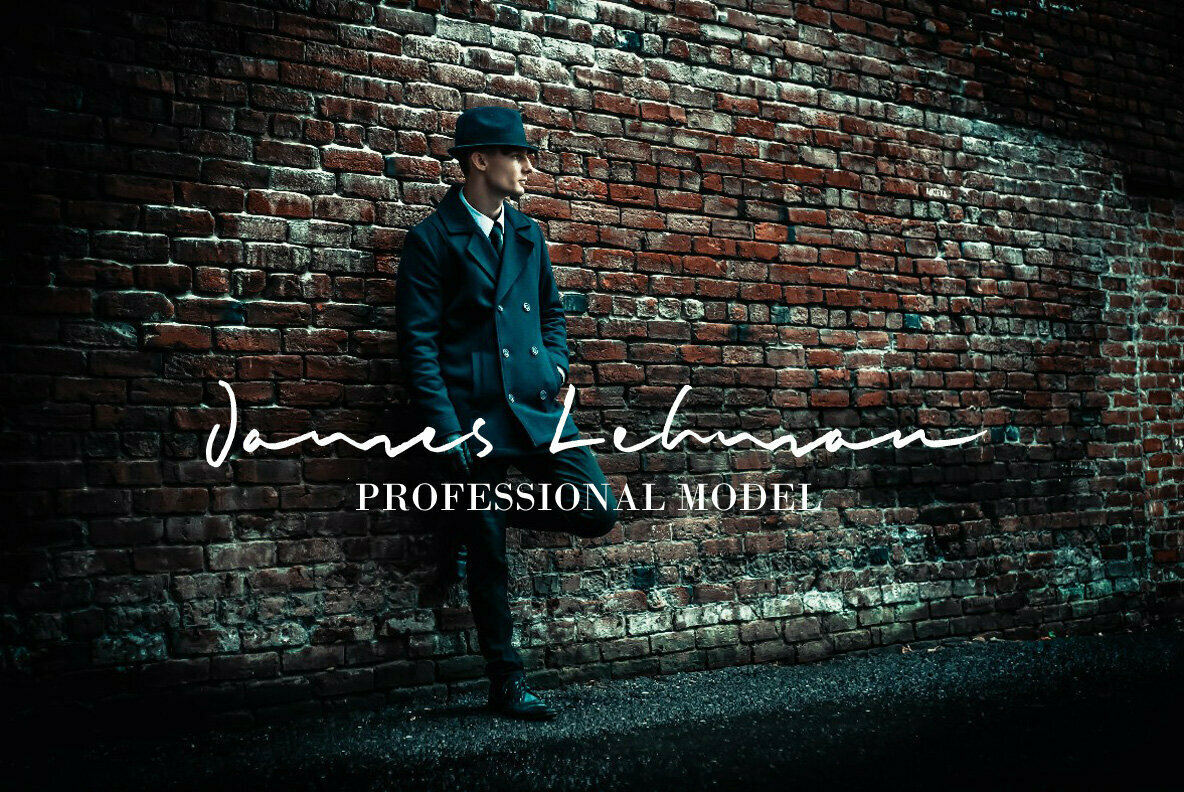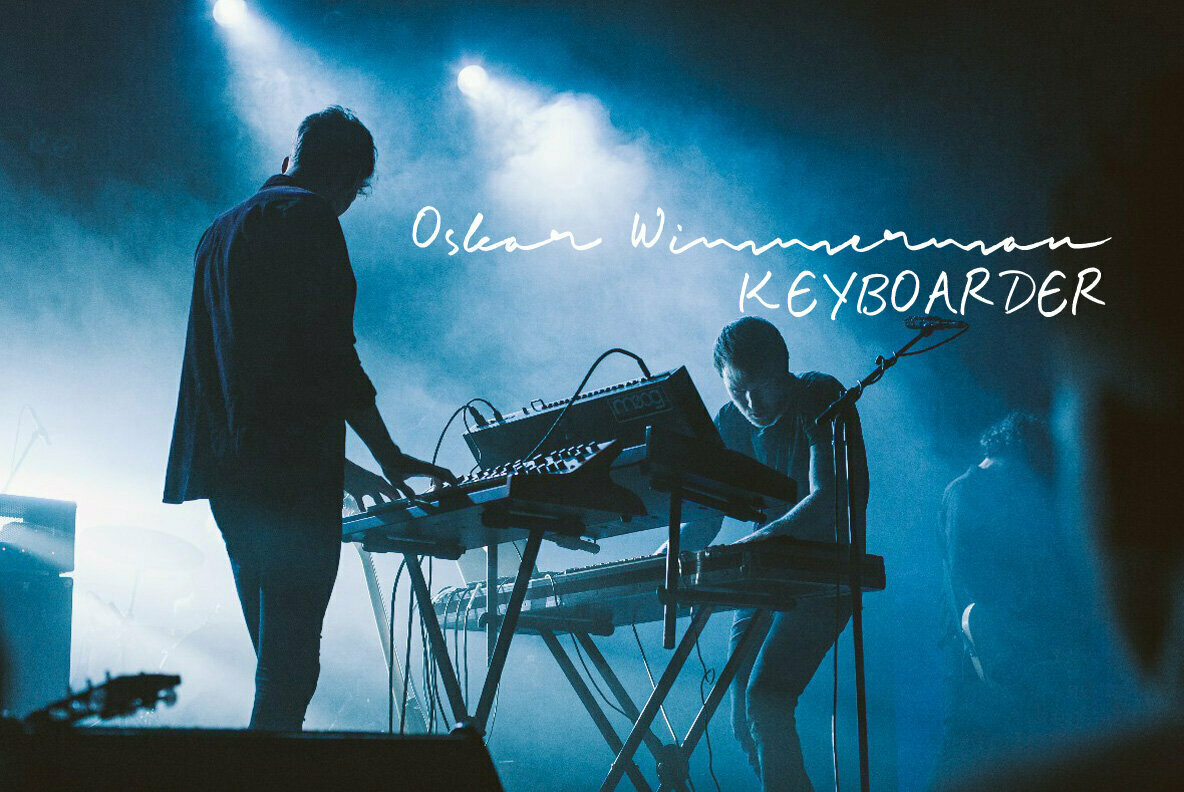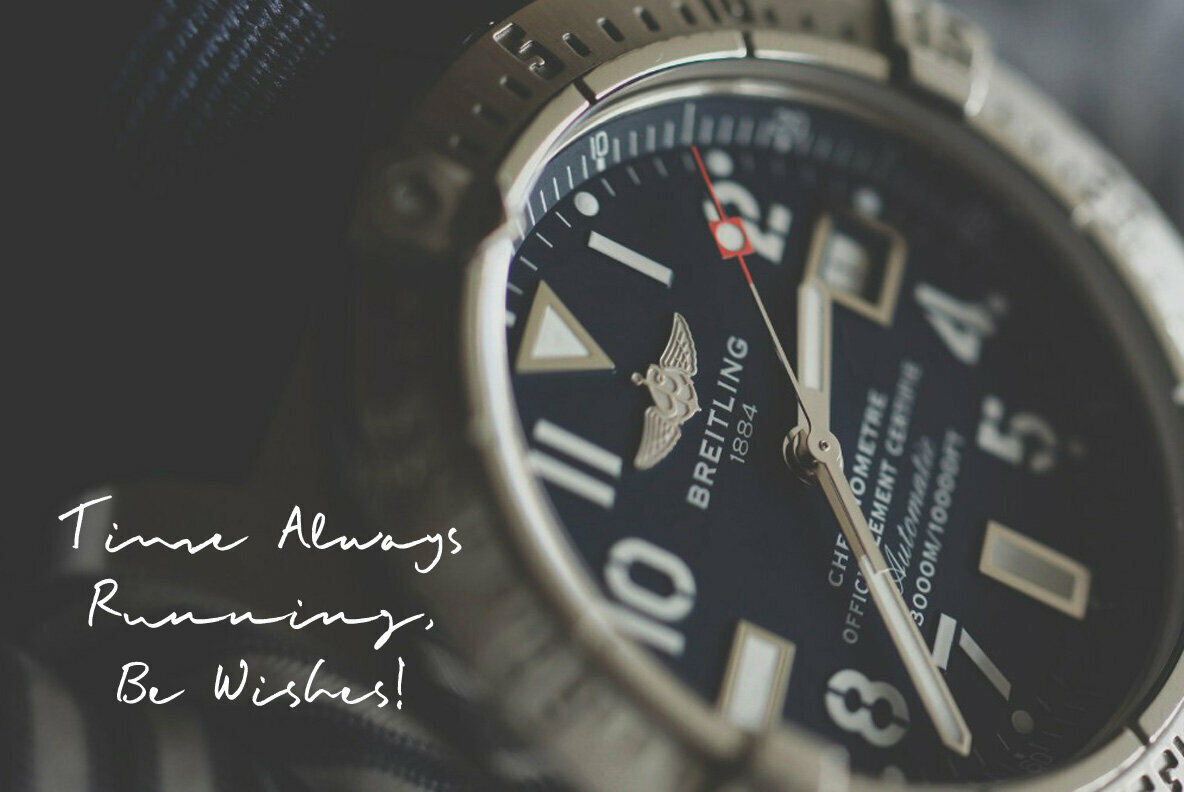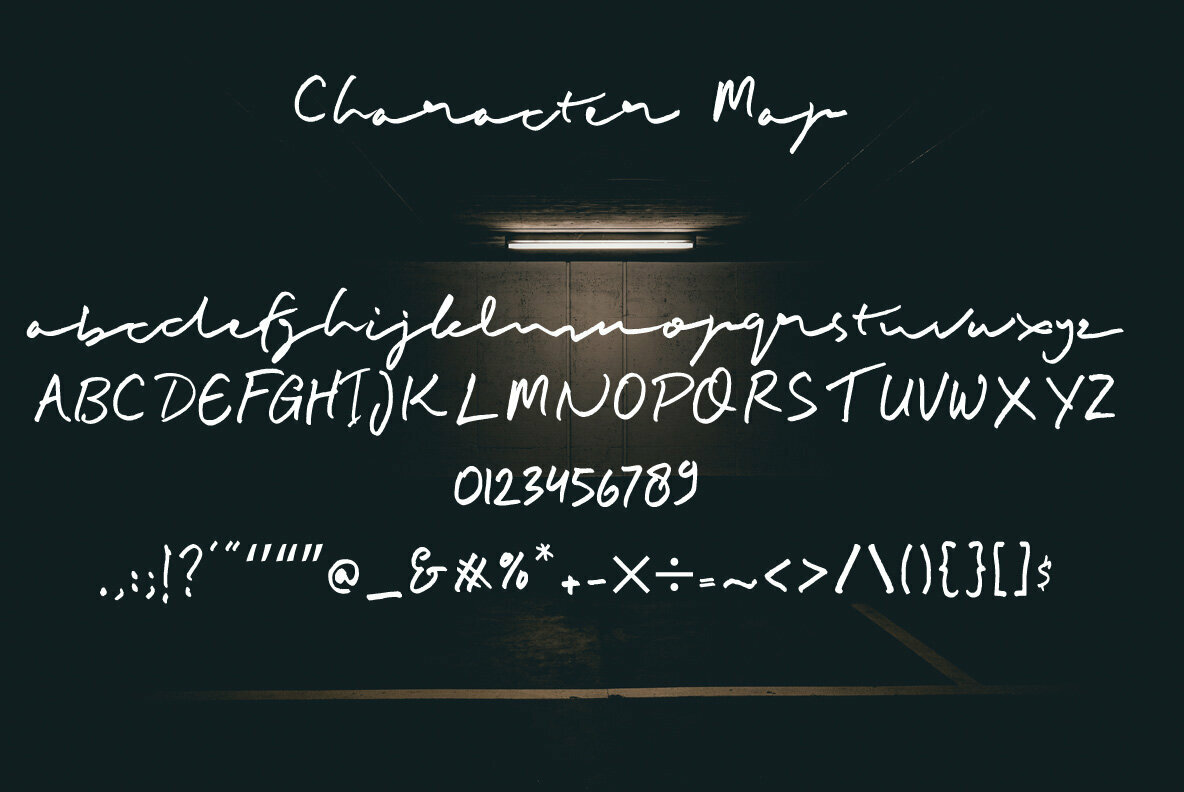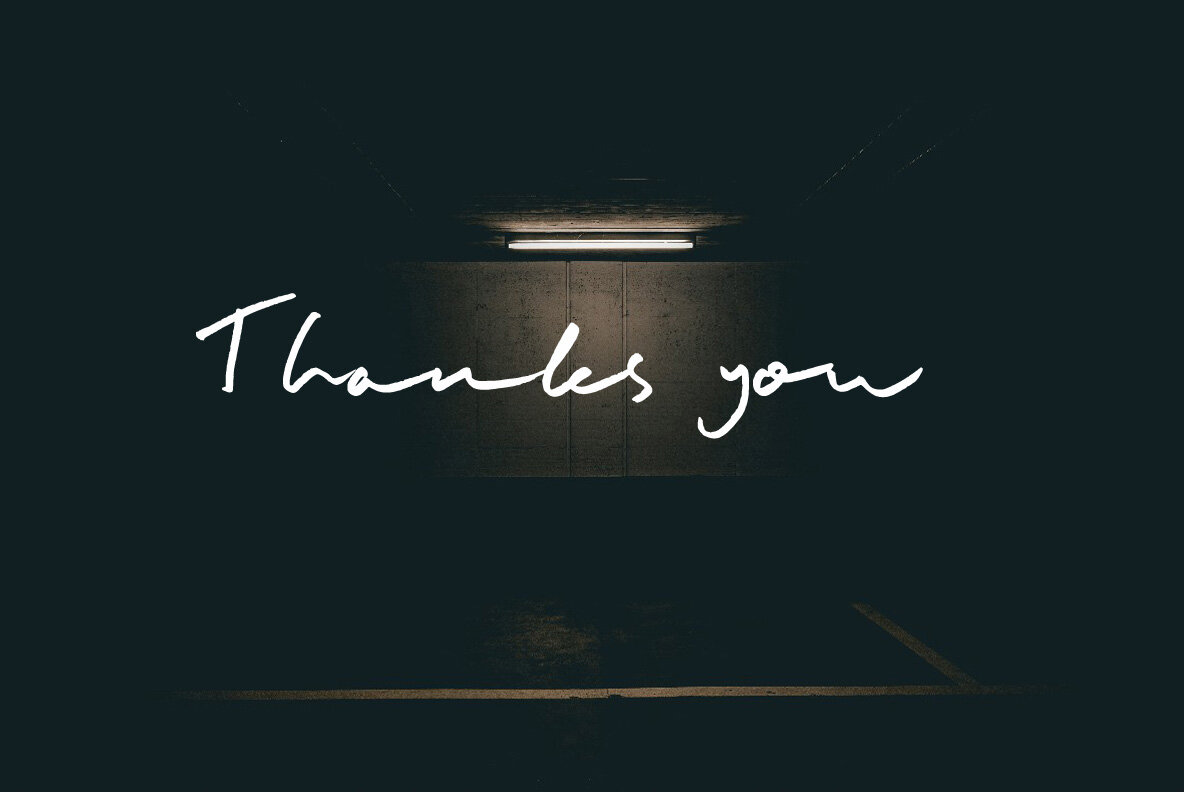
Buadly Signature Font
Buadly Signature
Buadly Signature offers a sophisticated touch with its elegant, script-handwritten style. This font brings a visually impressive collection of Latin characters, suitable for a range of projects in need of a refined aesthetic.Buadly Signature: Modern Script-Handwritten Font